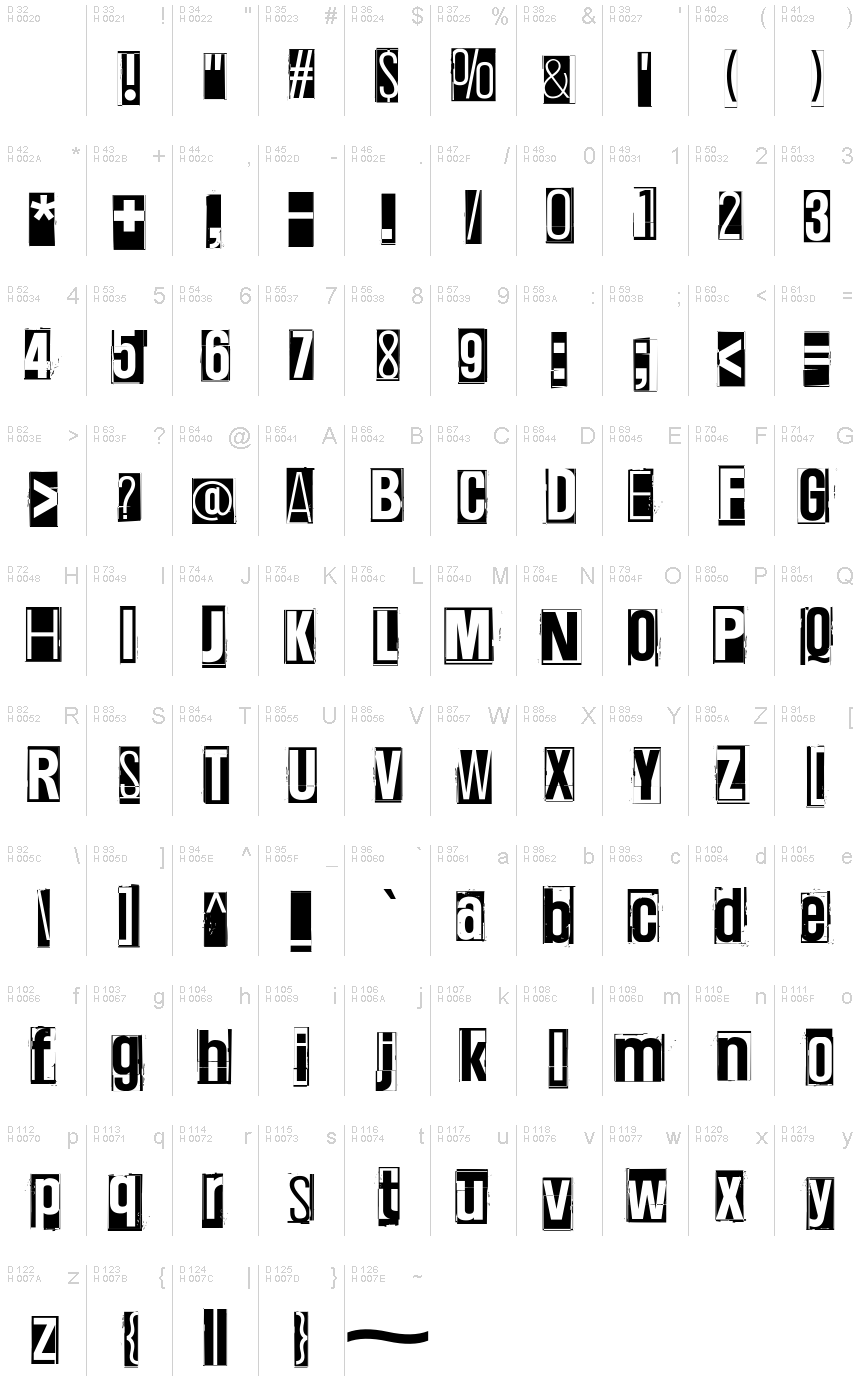
5 grams of microplastics in a week, a striking display font created by junkohanhero, captivates with its distinctively distorted aesthetic. The irregular, almost glitched-out letterforms exude a sense of digital decay, evoking a raw, visceral energy that commands attention. This font's unconventional style seamlessly blends elements of grunge, cyberpunk, and experimental typography, resulting in a visually arresting and emotionally charged design.
Boasting immense versatility, 5 grams of microplastics in a week shines in a variety of applications, from bold, attention-grabbing headlines to gritty, avant-garde branding and packaging design. Its unique character lends itself particularly well to projects that require a bold, impactful, and unconventional typographic treatment, such as album covers, event posters, and fashion editorials. Designers seeking to break free from the norm and create a lasting impression will find this font an invaluable tool in their creative arsenal.